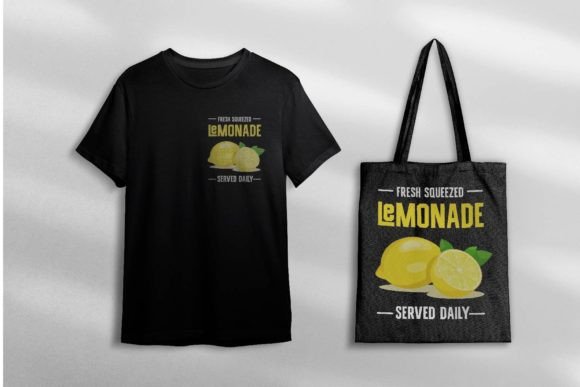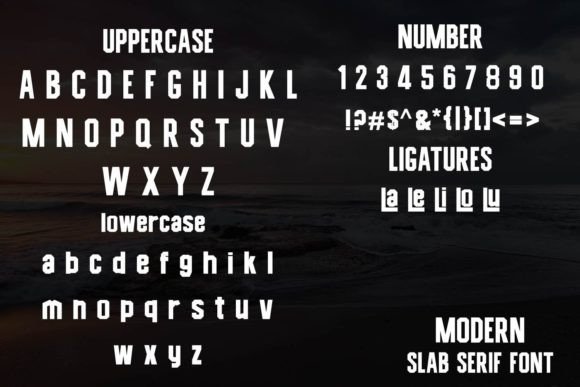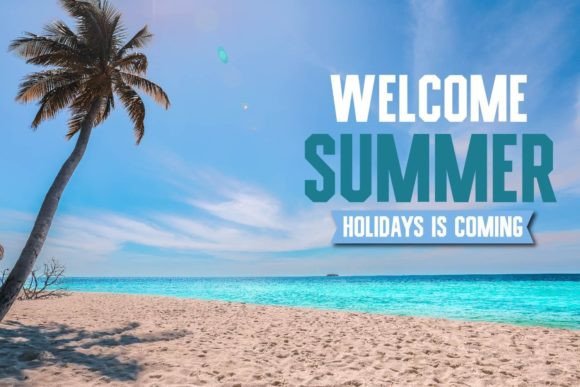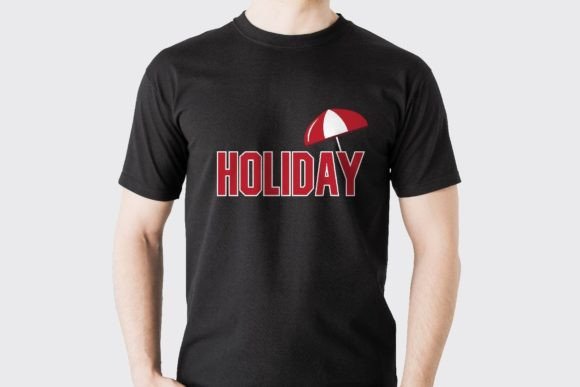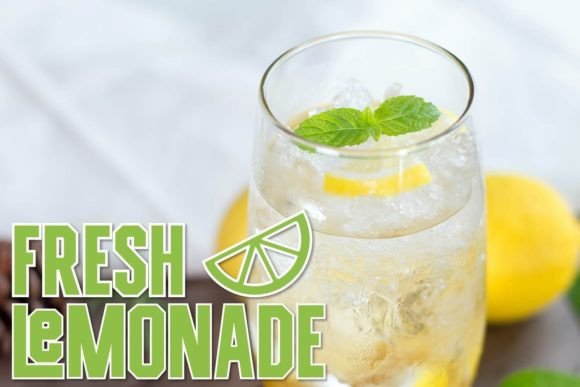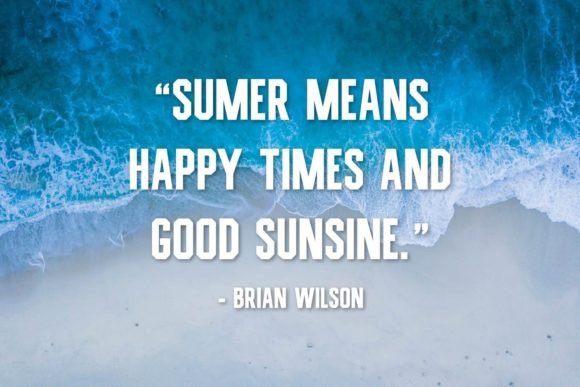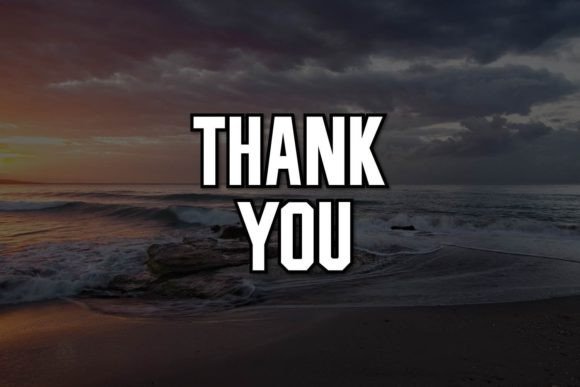
Beach Font
BEACH FONT SPECIMEN
Beach is a unique and astounding slab serif font. It is perfect for any branding project such as logos, t-shirt printing, creative products, or pretty much anything that could benefit from a strong serif, clean vibe.